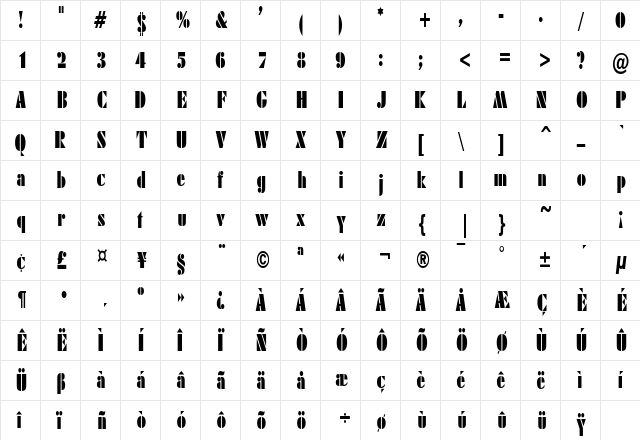
ArmyBlackCondensed Plain
Design Context for ArmyBlackCondensed Typeface
ArmyBlackCondensed draws on military and industrial lettering traditions, with forms that communicate strength and precision. Its narrow stance lets it pack a punch even in space-constrained designs.
A strong choice for security brands, outdoor gear, and high-stakes visual communication.
Font Pairing: Use alongside a condensed or geometric sans for supporting copy — keep the pairing bold, functional, and free of ornament.
Pro Tip: Try ArmyBlackCondensed in all-caps for the most authentic military signage feel. It pairs well with stark, minimal layouts and muted colour palettes.